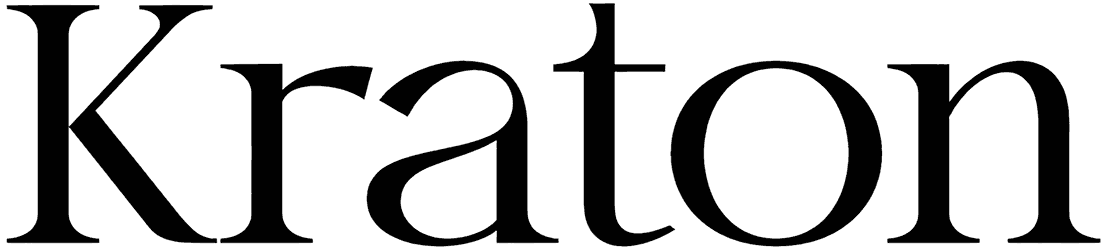
Kraton Font
Sometimes, to increase the impact of writing, you need to use a simple and powerful font, and that’s where Kraton comes in. This serif font, which doesn’t include numbers, has a historical overlay with standard twists that can give your writing a classic look.
On the other hand, the vertical lines and edges of this book font have brought an appearance of order and peace to it. So, it seems strong to display museums, craft shops, and art exhibitions.